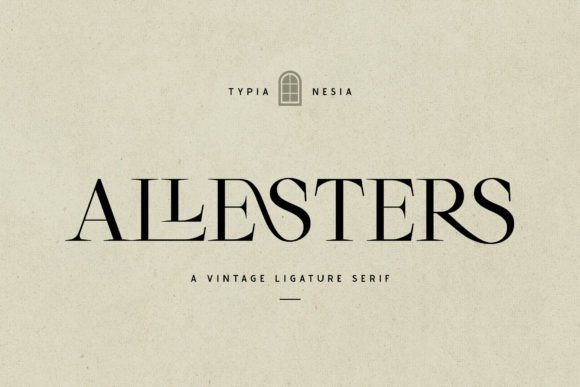
Welcome to the world of Allesters Font, an extraordinary serif font crafted to captivate and inspire. Immerse yourself in the realm of timeless beauty and limitless creativity as you discover the exquisite appeal of Allesters. Let your designs blossom with an aura of sophistication and elegance, captivating the hearts of your audience with every stroke.
Journey into the realm of creative possibilities with Allesters Font, where your design dreams take flight. This masterpiece of typography will elevate your wedding cards to new heights, transforming them into breathtaking works of art. Its enchanting ligatures and alternates dance harmoniously, creating a visual symphony that leaves a lasting impression.
Imagine your wedding invitations adorned with the graceful curves and delicate details of Allesters Font. Each letter becomes a testament to your love story, whispering tales of romance and joy. Your guests will be enthralled by the sheer elegance and artistry of your invitations, setting the tone for a truly unforgettable celebration.
But Allesters Font's allure extends far beyond the realm of wedding cards. Dive into the world of magazine design, where the sharp serifs and refined curves of this font lend an air of authority and credibility to your content. Your readers will be captivated by the seamless flow of words, drawn in by the captivating headlines that beckon them to delve deeper into your stories.
Unleash your creativity with Allesters Font in the world of novel books, where characters and worlds come alive in a mesmerizing tapestry of words. Let your readers get lost in the enchanting tales you weave, as the font's timeless beauty transports them to realms of imagination and wonder. Each page becomes a portal to another world, where the words dance off the page and ignite the reader's senses.
Allesters Font is not merely a collection of letters; it's a gateway to boundless creativity, a key that unlocks the door to design excellence. Whether you're crafting logos, branding materials, or embarking on advertising campaigns, Allesters Font will elevate your designs to new heights. Its versatility knows no bounds, adapting seamlessly to both formal and informal settings.
With Allesters Font, you hold the power to transform your designs into exquisite masterpieces. Its unique ligatures and alternates add a touch of whimsy and playfulness, allowing you to express your creativity like never before. Embrace the versatility of Allesters Font and watch as your designs blossom into breathtaking creations that leave a lasting impact.